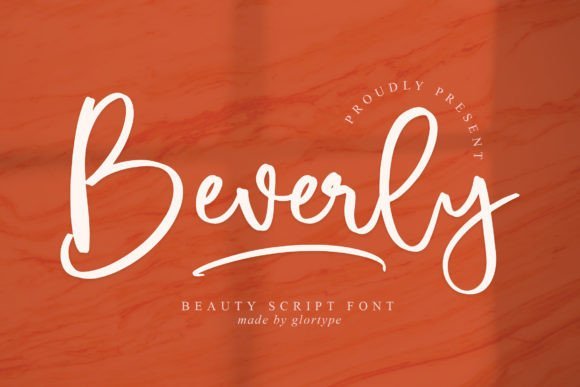
Beverly Font: Adding a Touch of Elegance to Your Designs
There’s something special about holding a handwritten note from a loved one, or seeing a beautifully crafted logo that immediately grabs your attention. It’s the human touch that makes a design truly memorable. As designers, we’re always on the lookout for fonts that can evoke this same feeling of warmth and personality.
Enter the Beverly Font, a stunning handwritten font that’s perfect for adding a touch of elegance to your designs. With its beautiful script style, it’s ideal for a wide range of projects, from logos and branding to homeware designs and product packaging.
The Beverly Font is a valuable addition to any designer’s toolkit, offering a unique and versatile solution for creating eye-catching and memorable designs. Whether you’re working on a special event, a photography project, or simply want to add a personal touch to your designs, the Beverly Font is sure to impress.
Beverly Font Key Features
- Font Style: Script
- Unique Characteristics: Hand-drawn, elegant, and highly legible with a mix of cursive and printing styles
Beverly Font Review
I recently had the chance to work with the Beverly Font, and I must say it’s a great addition to any designer’s toolkit. Here are my honest thoughts:
- Classy, elegant feel: Beverly Font has a sophisticated aesthetic that’s perfect for high-end branding, fashion, and lifestyle designs.
- Wide language support: This font includes a broad range of language support, making it suitable for international designs.
- Flexibility: Beverly Font is available in various weights and styles, allowing designers to create a cohesive visual identity.
- May not be ideal for bold, attention-grabbing headlines: While Beverly Font is great for elegant designs, it may not be the best choice for loud or edgy projects.
- Not suitable for small text sizes: The font’s design can become difficult to read at very small text sizes, so it’s essential to test it carefully.
Overall impression
The Beverly Font is a solid choice for designers seeking a sophisticated, high-end aesthetic. While it may have some limitations, its strengths make it a great addition to any design project that requires elegance and refinement.
Beverly Font is perfect for:
- Event branding and marketing materials
- Corporate presentations and reports
Use Beverly Font to add a touch of sophistication and elegance to your designs.